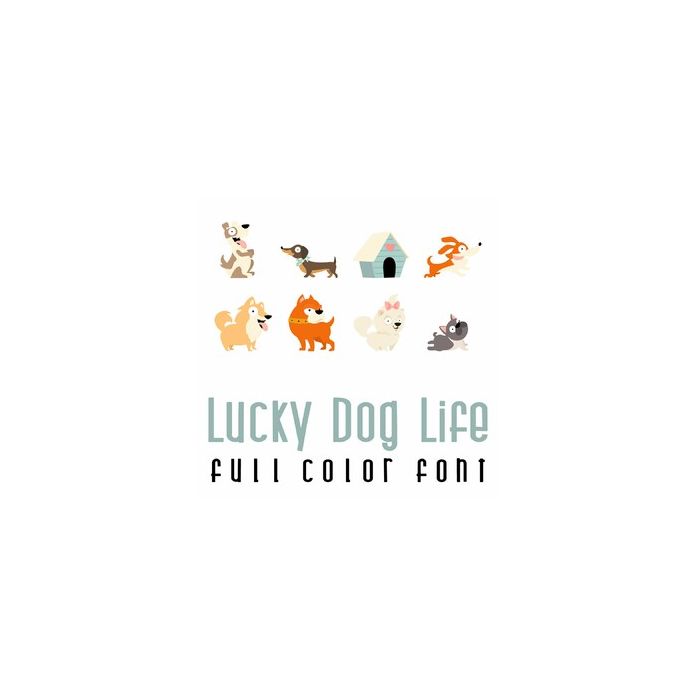
This adorable full color font features 26 dogs living their best life! Perfect for cards, crafts, gifts, scrap book pages, planner stickers, decor, and more!